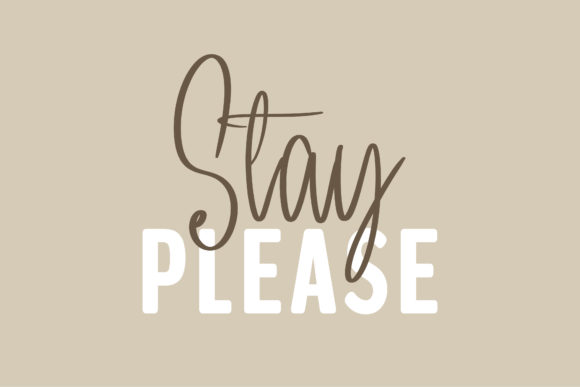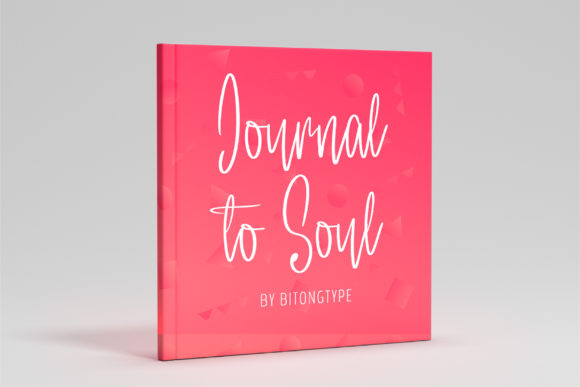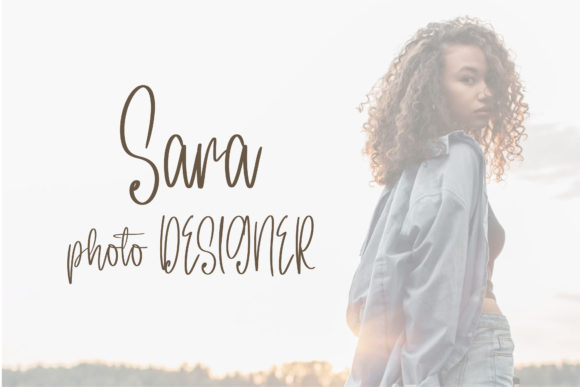
Introduction to More Sky Font
Have you ever found yourself staring at a blank page, trying to bring your creative vision to life? The perfect font can make all the difference, elevating your design from ordinary to extraordinary. For designers, the search for that elusive perfect font can be a long and arduous one – until now.
Meet the More Sky Font, a stunning handwritten script font that’s set to revolutionize your creative projects. With its natural and unique style, this font is the perfect addition to any design, offering endless possibilities for creative expression.
About the More Sky Font
With its high-quality design and transparent background, the More Sky Font is the ideal resource for designers looking to add a touch of elegance and sophistication to their work. And the best part? It’s available for free download, making it an essential addition to any design toolkit.
Key Features of More Sky Font
- High-quality design resource ideal for creative projects, offering a unique and professional look.
- Perfect for use in digital design, including websites, social media graphics, and mobile app interfaces.
- Easy to use and modify, making it a valuable asset for designers and creatives working on various projects.
Honest Review: More Sky Font
As a designer, I’m always on the lookout for high-quality design resources to elevate my creative projects. Recently, I stumbled upon the More Sky Font, and I’m excited to share my honest review with you.
The first thing that caught my attention was the transparent background, which makes it incredibly versatile for use in various design contexts. Whether you’re working on a graphic design project or creating a website, this font can be easily customized to fit your needs.
Here’s what works well:
- ✨ High-quality design with crisp and clean lines.
- ✨ Perfect for creating a modern and minimalist aesthetic.
- ⚠️ Limited font styles and weights, which may not be ideal for complex design projects.
- ⚠️ May not be suitable for use in large-scale typography or headings.
Overall, I’m impressed with the More Sky Font. While it has some limitations, its high-quality design and transparent background make it an excellent choice for designers looking to add a touch of sophistication to their creative projects.
Tips for Getting the Most Out of More Sky Font
Use More Sky Font with a transparent background to create a high-quality, creative project. Experiment with different font sizes and styles to add visual interest. Consider pairing More Sky Font with other design resources, such as images or graphics, to enhance your design.
More Sky Font is ideal for creative projects, such as graphics, logos, or branding materials. It’s also great for use in presentations, documents, or websites that require a high-quality, custom font.